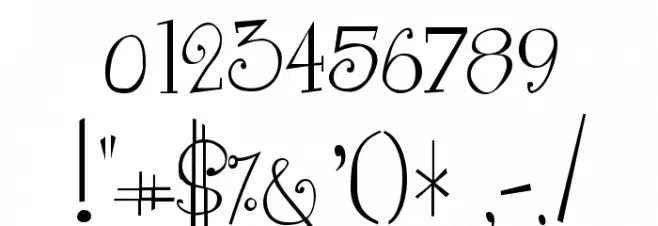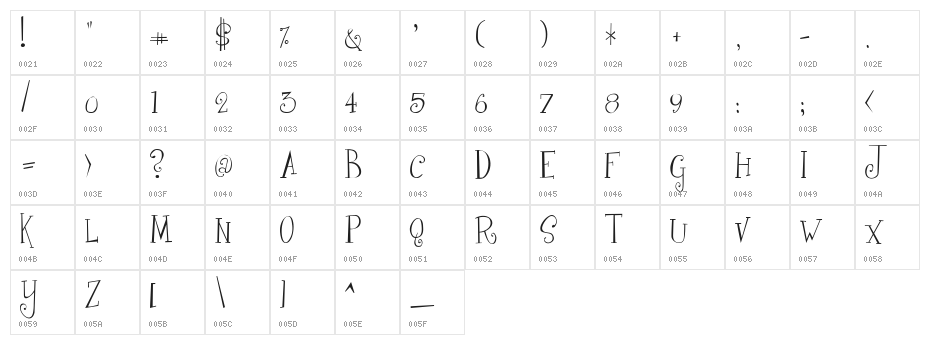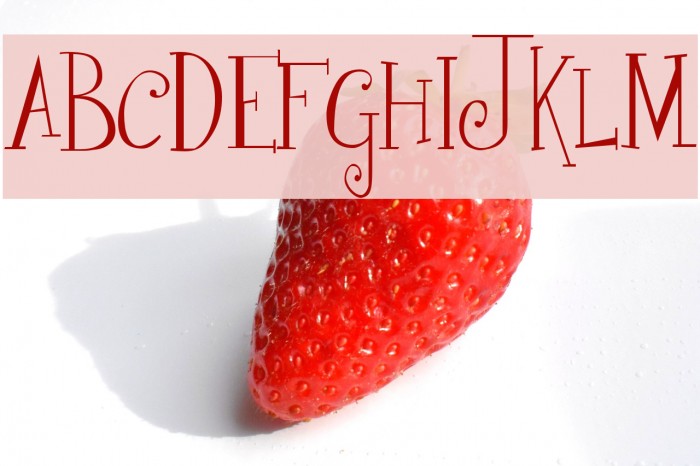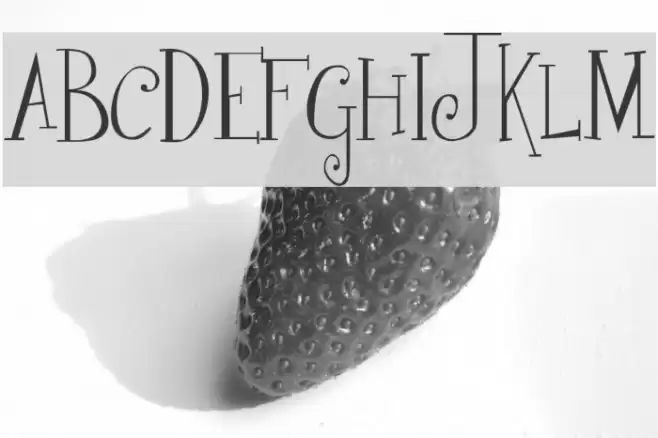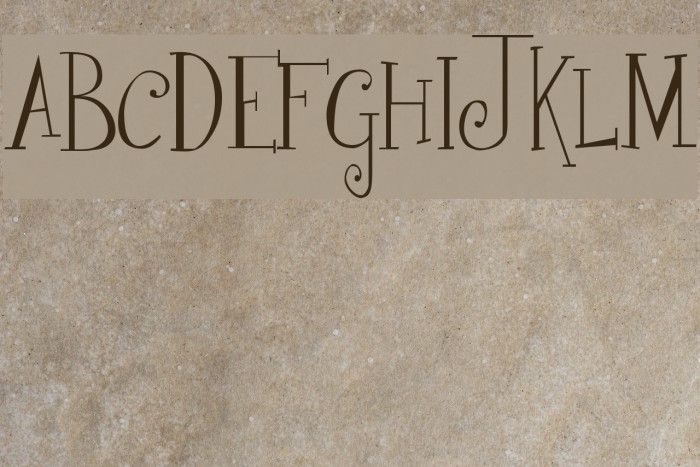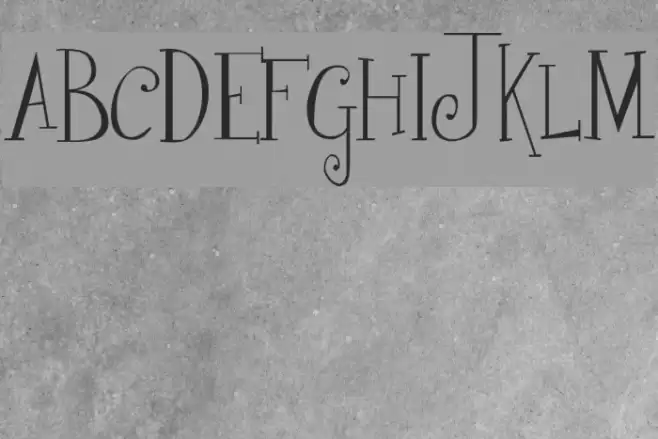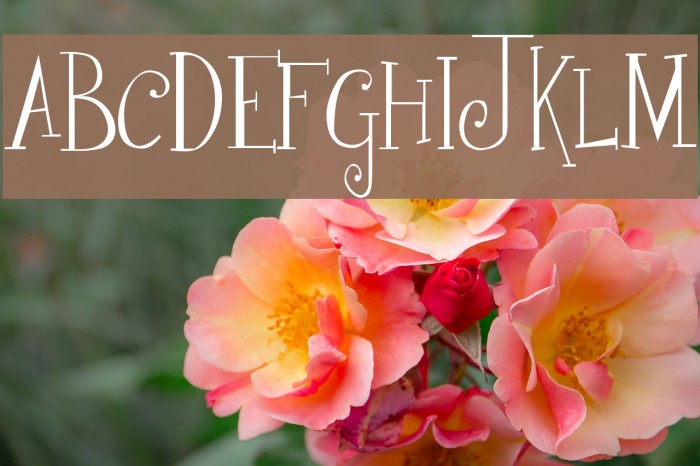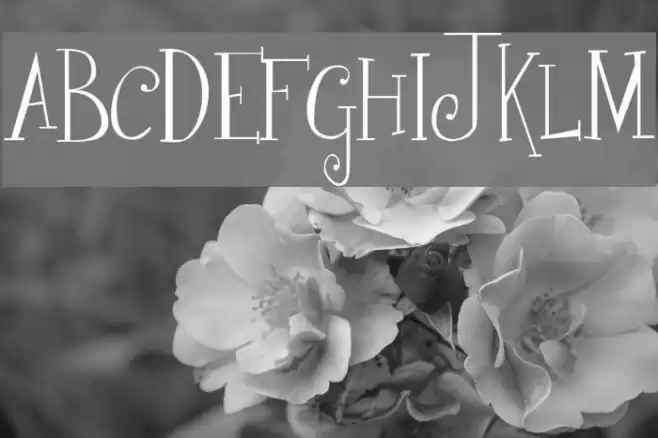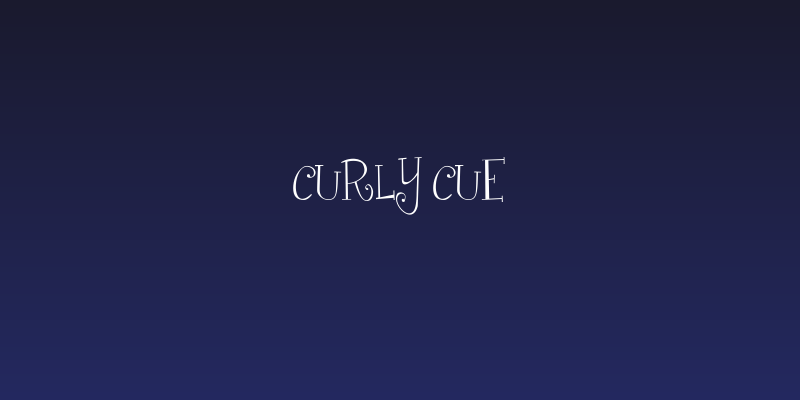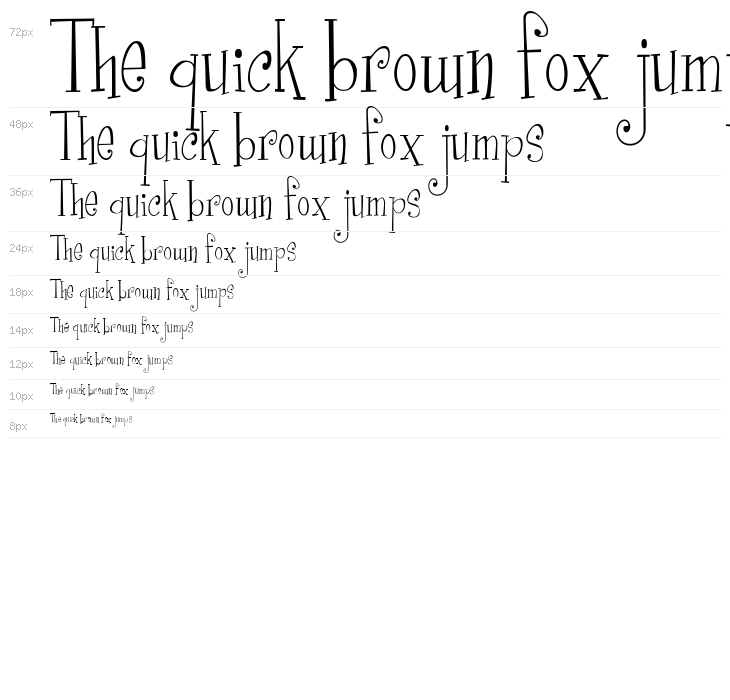
Curly Cue Font
Curly Cue Description
This font features a whimsical and playful design, characterized by its curly and swirly elements that add a touch of fun to each character. The uppercase letters are tall and slender, with exaggerated loops and curls that give them a unique flair. The lowercase letters maintain this playful style, with some characters featuring unexpected twists and turns. The numerals and special characters follow suit, incorporating the same curly design elements. This font is perfect for projects that require a lighthearted and creative touch, making it ideal for invitations, greeting cards, and playful branding.